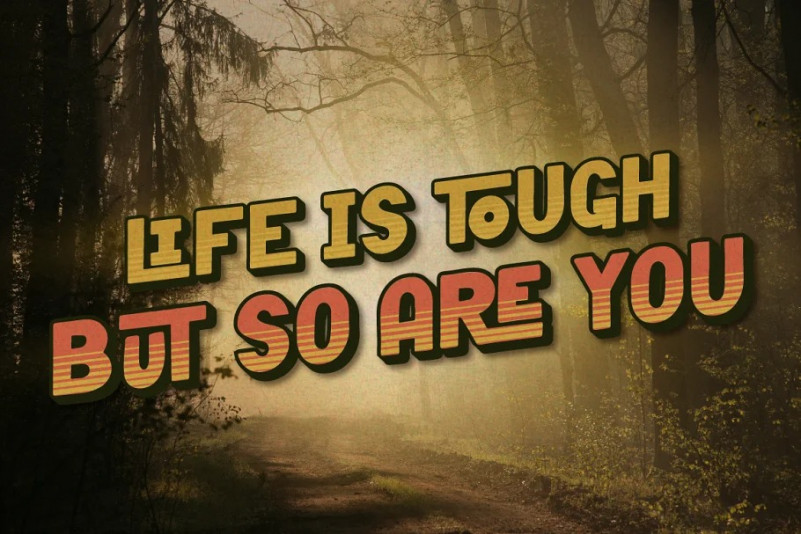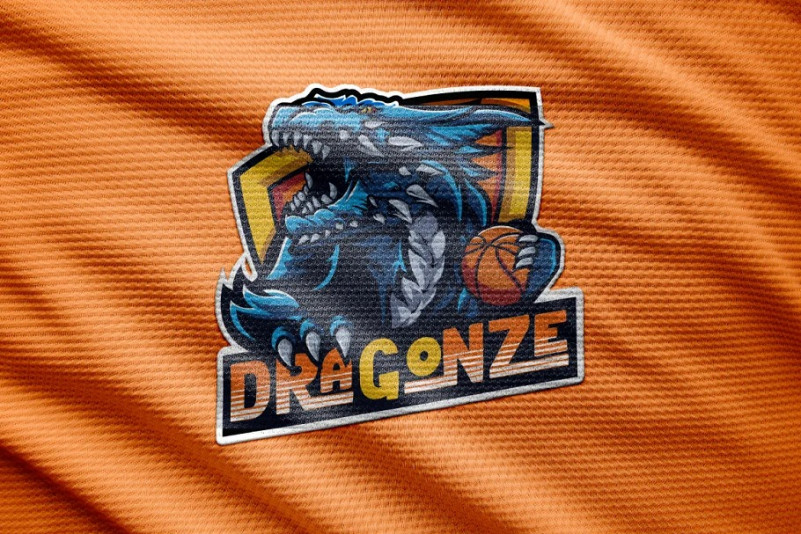
Love America Display Font
Love America! It is an amazing and cute display font. This font will look outstanding in any context, whether it’s being used on busy backgrounds or as a standalone headline! This display font is the perfect choice for making original and outstanding designs. This font is PUA encoded which means you can access all of the cute glyphs with ease! It also features a wealth of including ligatures.